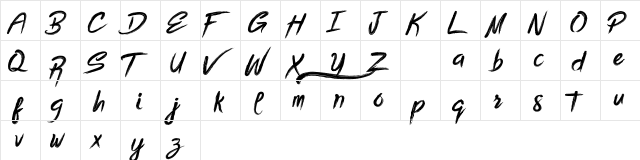
Bottomless Script Regular
Design Context for Bottomless Script Typeface
Bottomless Script brings a calligraphic fluidity to the page — its connecting strokes and expressive curves give it an unmistakably human quality.
Font Pairing: Combine Bottomless Script with a simple geometric sans for maximum contrast — the tension between flowing curves and clean structure is a classic typographic pairing.
Pro Tip: Use Bottomless Script for short runs of text — names, titles, or taglines. Extended body copy in script faces tires the eye quickly.